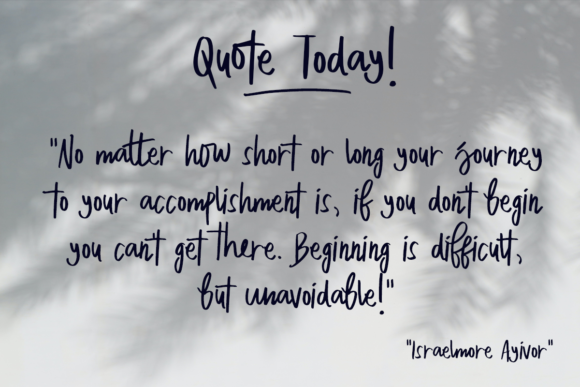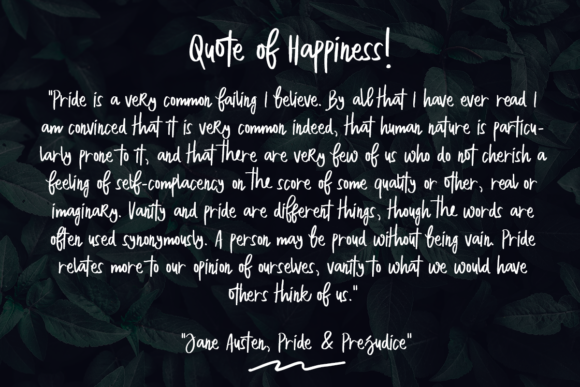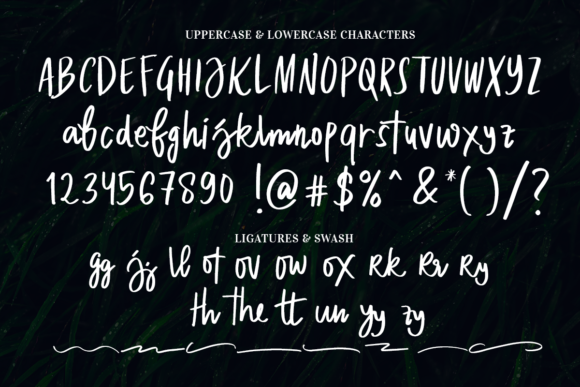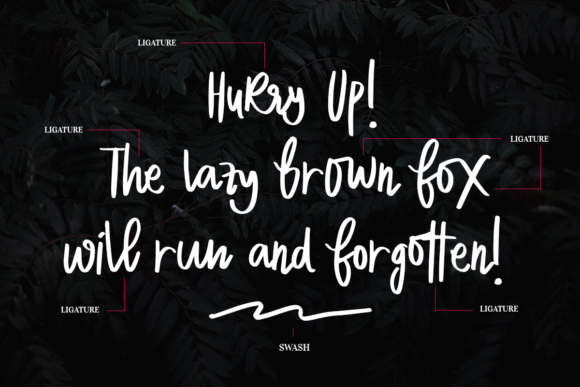
Dakota Magic Font
About Dakota Magic Font
Dakota Magic is a beautiful and flowing script font. It can be used for various purposes such as logos, wedding invitations, headings, t-shirts, letterhead, signage, labels, news, posters, badges, and so much more!